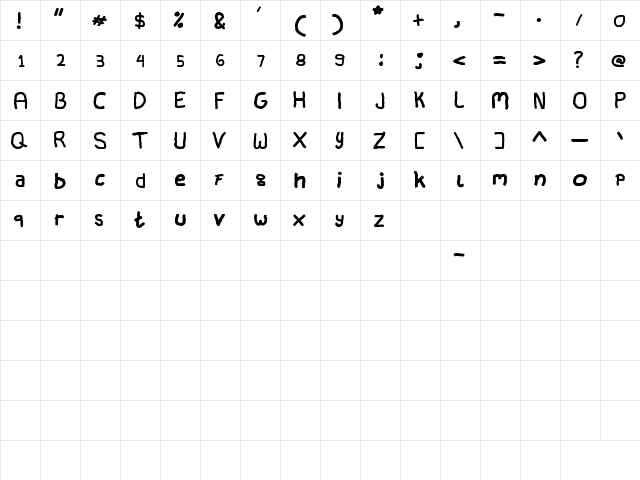
Lambreto Font Regular
Design Context for Lambreto Font Typeface
Lambreto Font offers clean, dependable letterforms without strong stylistic allegiance, making it a practical choice for designers who need flexibility.